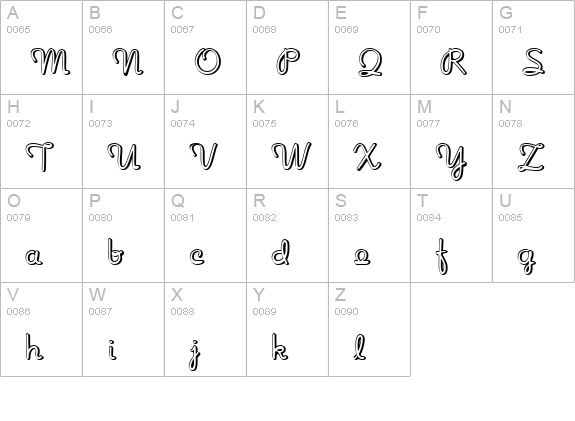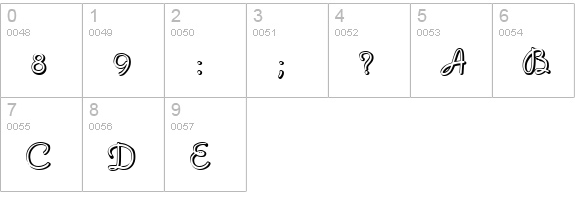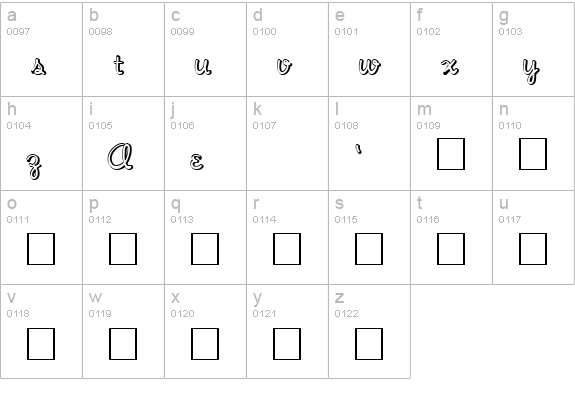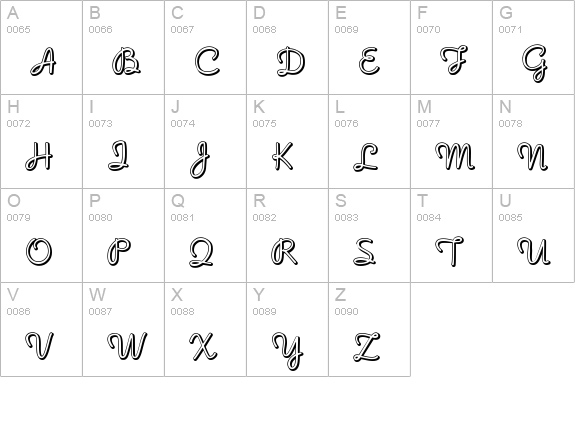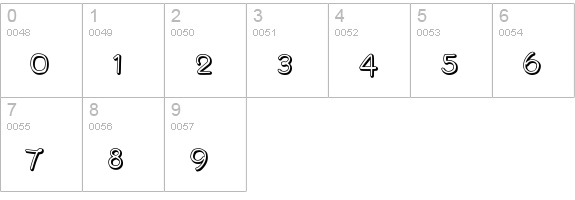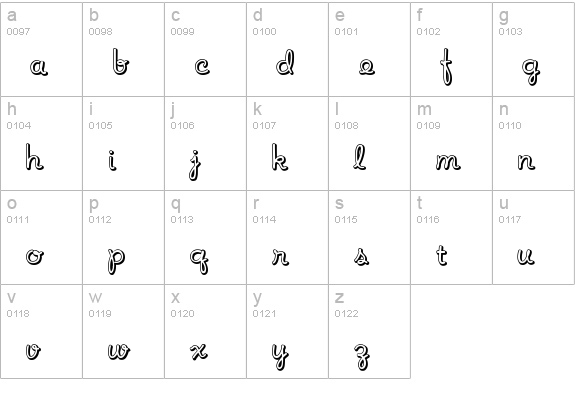
NoodleShaded Font Details
NoodleShaded font is a playful and quirky typeface that is perfect for adding a fun touch to your designs. With its whimsical style and unique hand-drawn look, this font is sure to catch the eye and make a statement. Whether you're working on a poster, logo, or any other creative project, NoodleShaded font will bring a touch of whimsy and charm to your work. Best of all, NoodleShaded font is available for free download at FontsMarket.com. So go ahead and add this delightful font to your collection today and let your creativity shine!